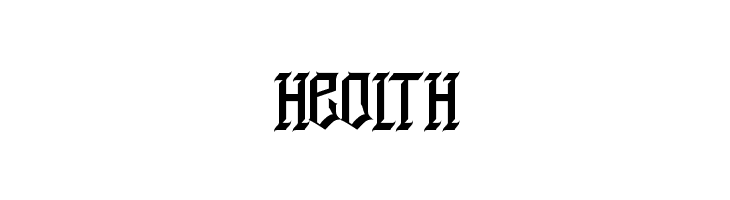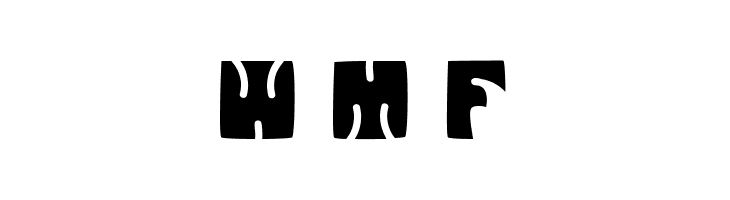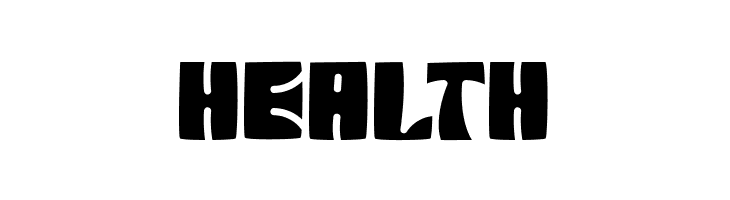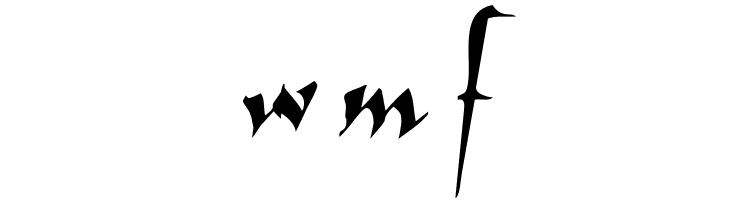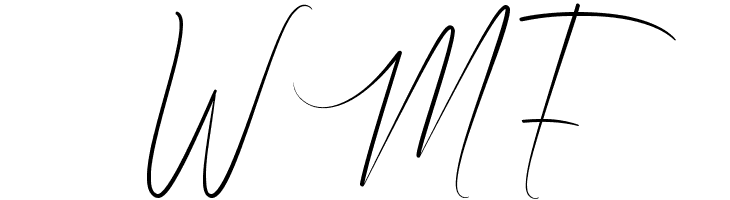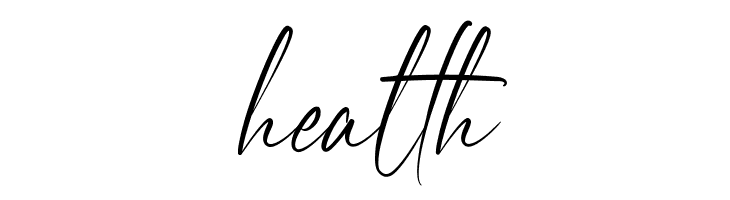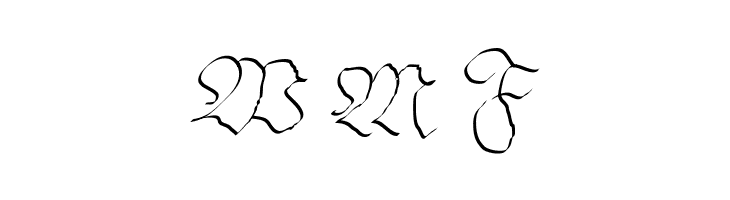
An elegant script font with flowing, cursive style and intricate swashes.
A bold, playful handwritten font with thick, rounded strokes.
A dynamic cursive script font with elegant, flowing strokes.
A modern serif font with sharp angles and clean lines.
A modern, geometric font with clean lines and balanced spacing.
A bold, artistic font with thick strokes and a whimsical style.
An elegant calligraphic font with flowing, ornate strokes.
A bold, expressive font with sharp, angular strokes and a calligraphic influence.
An elegant, flowing script font with smooth, cursive strokes.